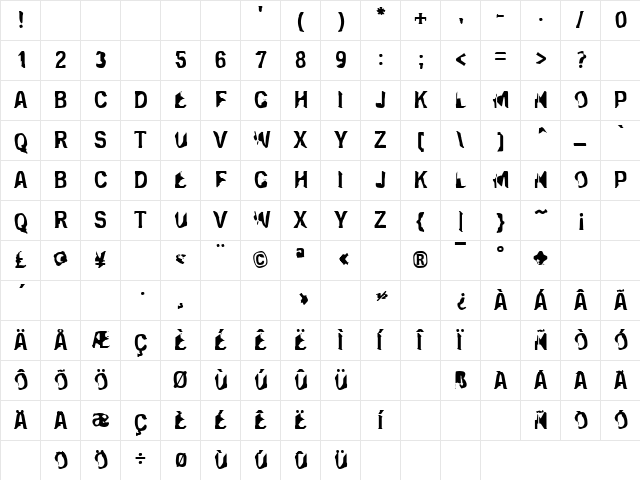
Eclipsed Moon Regular Free Font
Eclipsed Moon Regular
Design Context for Eclipsed Moon
Eclipsed Moon is a composed and adaptable typeface that performs quietly and consistently across a wide range of design contexts.
Pro Tip: Use Eclipsed Moon in both headline and body roles to test its range before committing to a single application.